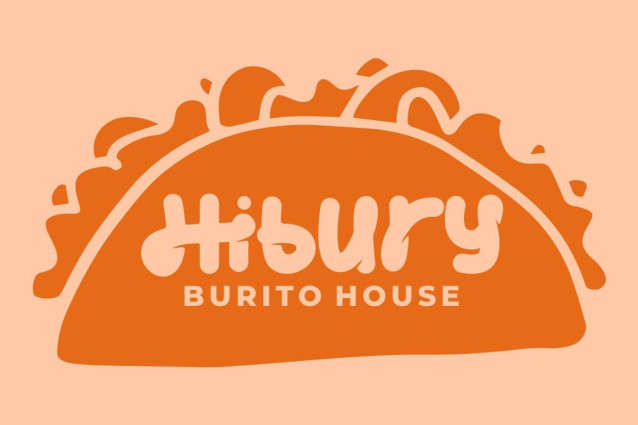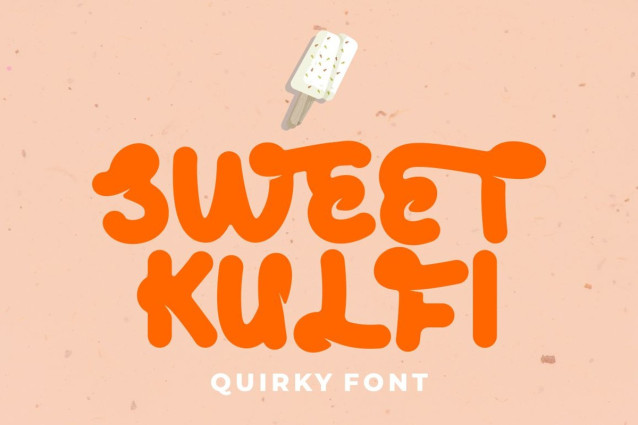
Sweet Kulfi Font
Sweet Kulfi Font, a quirky display font that adds a playful touch to your designs. Inspired by hand-lettered bold typefaces, this font is perfect for those looking to inject some fun into their projects. With both uppercase and lowercase versions available, you can mix and match to create unique designs that stand out. Sweet Kulfi also comes with a ligature feature that adds an extra cute touch to your work.
For those looking to add a playful yet stylish touch to their designs, Sweet Kulfi is the perfect choice. This font works well for a variety of projects such as logos, titles, cover designs, headlines, apparel, comics, book covers, cards, posters, and anything that requires a childlike feel. It’s great for those who want to bring a sense of fun and playfulness to their designs.
Sweet Kulfi comes with a range of features including uppercase and lowercase letters, OpenType alternates and ligatures, numbers, punctuation and symbols. This font also supports multiple languages, making it easy to use for international projects.
If you’re looking for a font that is both playful and stylish, then Sweet Kulfi is the perfect choice. With its unique hand-lettered style, this font is perfect for a variety of design projects that require a fun and creative touch.
In summary, Sweet Kulfi is a quirky display font with both uppercase and lowercase versions, OpenType alternates and ligatures, numbers, punctuation and symbols, and multilingual support. This font is perfect for a range of design projects that require a playful touch, such as logos, titles, cover designs, apparel, comics, book covers, cards, posters, and more.